Kawaii fonts are exactly what they sound like – typefaces that embody the Japanese concept of “kawaii” (meaning cute). These fonts typically feature rounded letterforms, playful details, and that unmistakable charm that makes you want to squeeze them like a plushie.
Whether you’re designing anime merchandise, creating content for social media, or just want to add a dash of cuteness to your projects, kawaii fonts are your secret weapon for instant adorability.
The Most Adorable Kawaii Fonts of 2026
Not all cute fonts are created equal, so I’ve curated a collection of the most genuinely kawaii typefaces that capture that authentic anime aesthetic. Here are my top picks:
Bubble Bliss Bloom
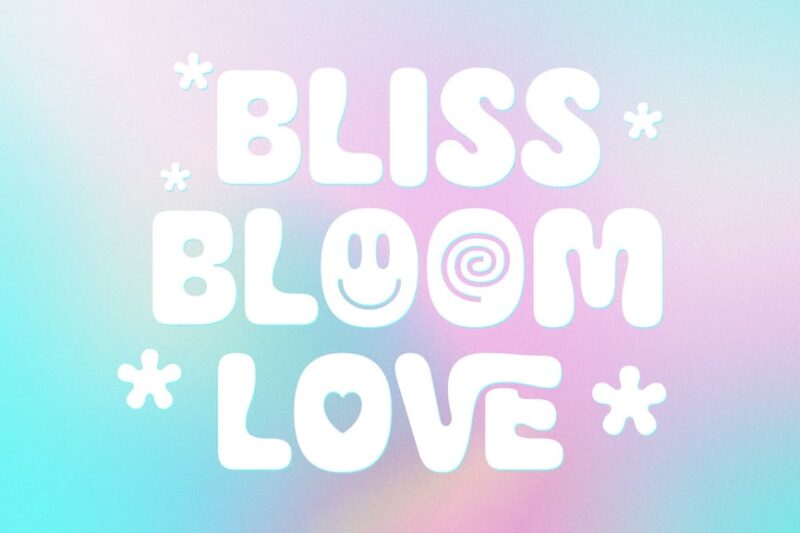
Bubble Bliss Bloom is a groovy font that exudes a cute and chunky aesthetic. Its playful design incorporates bubble-like elements, making it perfect for anime-inspired or youthful projects that require a fun and energetic typographic approach.
Cute Lime
Cute Lime is a charming bubble display font that brings a refreshing and lively feel to designs. Its rounded, inflated letterforms create a sweet and approachable look, ideal for projects targeting a younger audience or those aiming for a lighthearted vibe.
Clefy
Clefy is a delightful bubble font that combines cuteness with a touch of sophistication. Its inflated characters maintain a clean and legible appearance, making it versatile for both playful and moderately formal designs that require a friendly, approachable typeface.
BLUM
BLUM is a cute and lovely bubble font that blends script and handwritten styles with sans-serif elements. This decorative typeface is perfect for children’s products, as it captures a youthful spirit while maintaining readability and charm.
Babel Gamee
Babel Gamee is a playful and chunky bubble font that stands out with its bold, inflated characters. This decorative typeface is ideal for game designs, children’s products, or any project that requires a fun, chubby letterform with high visual impact.
Fluffy Blitz
Fluffy Blitz is a dynamic graffiti bubble font that brings street art flair to designs. With its playful and cartoon-like appearance, this font is perfect for urban-themed projects, youth-oriented designs, or any work that needs a bold, energetic typographic statement.
Smothy Bubble Font
Smothy Bubble Font combines retro charm with a modern bubble aesthetic. Its smooth, rounded forms create a nostalgic yet contemporary feel, making it suitable for vintage-inspired designs or projects that aim to blend old-school cool with current trends.
Booba Candy
Booba Candy is a bold and playful typeface that evokes the sweetness of confectionery. Its thick, rounded forms and lively character make it an excellent choice for candy packaging, children’s products, or any design that needs to convey a fun, indulgent feel.
Dwangku
Dwangku is a joyful display font that combines bubble-like qualities with a sans-serif structure. Its upbeat and fun design makes it perfect for headlines, logos, or any project that requires a cheerful and eye-catching typographic element.
Baby Glaze
Baby Glaze is a decorative font that captures the essence of cartoons and childhood. Its soft, rounded forms and playful design make it ideal for children’s books, nursery decor, or any project targeting a young audience or aiming for a whimsical touch.
Wanbots
Wanbots is a bubble font that combines pop culture appeal with retro aesthetics. This sans-serif typeface offers a unique blend of futuristic and vintage elements, making it suitable for tech-related designs, retro-futuristic themes, or modern projects with a nostalgic twist.
Love You
Love You is a funny and cute balloon font that includes both letters and symbols. This decorative sans-serif typeface is perfect for Valentine’s Day designs, love-themed projects, or any work that needs to convey affection with a lighthearted, playful approach.
Daily Bubble Font
Daily Bubble Font combines retro charm with modern bubble aesthetics. Its rounded, inflated characters offer a fresh take on vintage typography, making it suitable for nostalgic designs, casual branding, or projects that need a friendly, approachable typeface.
Bloombang
Bloombang is a bubble display font that offers a bold and eye-catching typographic solution. This decorative sans-serif typeface features inflated letterforms that create visual impact, making it ideal for headlines, logos, or any design that needs to make a strong statement.
So go ahead, embrace your cute side, and let these kawaii fonts add some much-needed sweetness to your next design project. After all, in a world that could always use more kindness, what could be more perfect than typography that makes people smile?
Final Tip: Remember that the best kawaii font is one that feels authentic to both the aesthetic and your project’s needs. Choose with your heart, but design with your head, and you’ll create something truly magical.